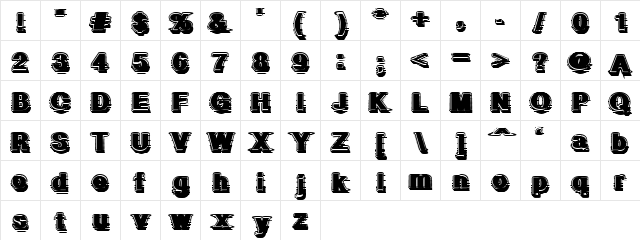
GeometricFog Regular
Design Context for GeometricFog Typeface
GeometricFog is a composed and adaptable typeface that performs quietly and consistently across a wide range of design contexts.